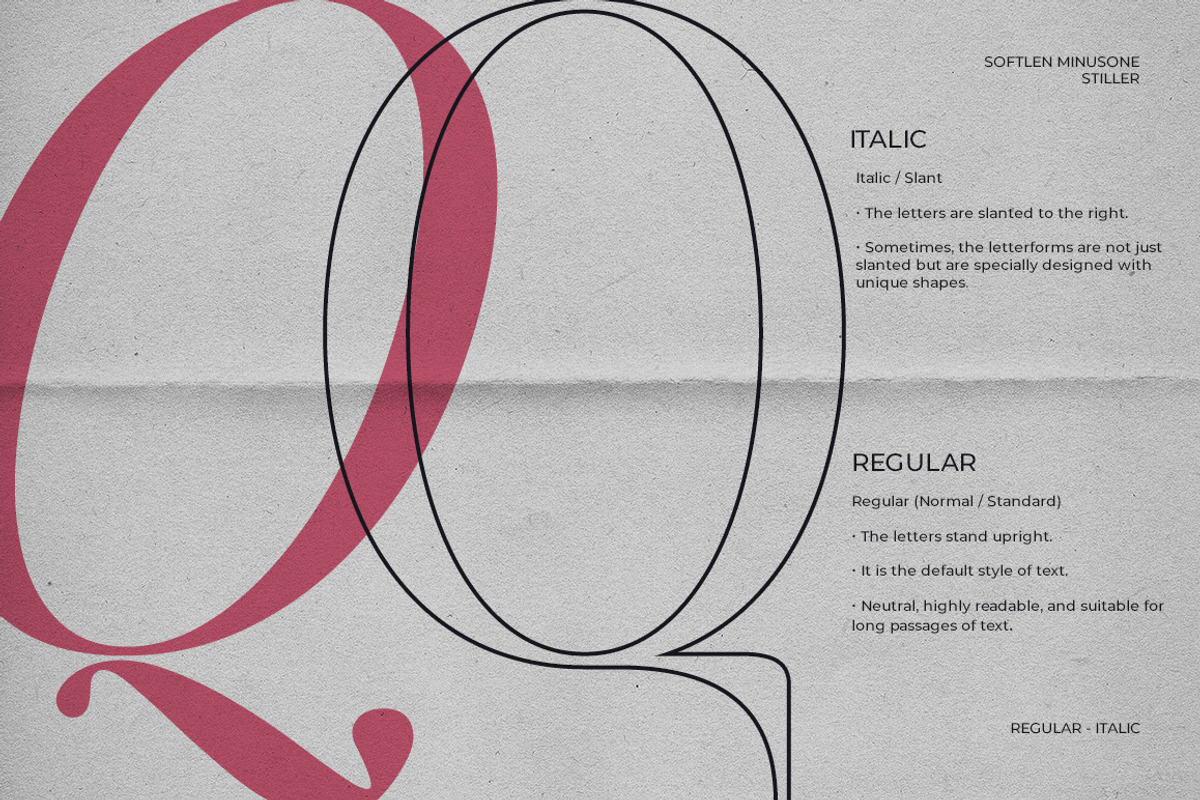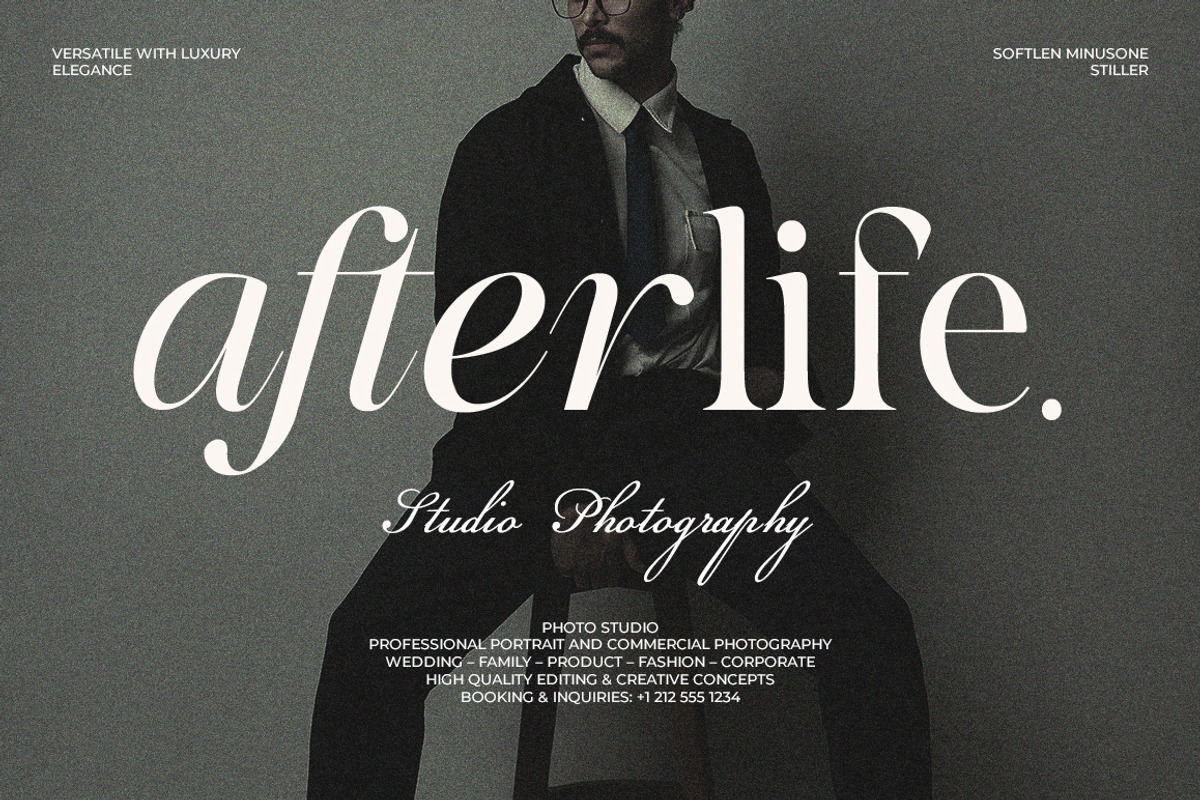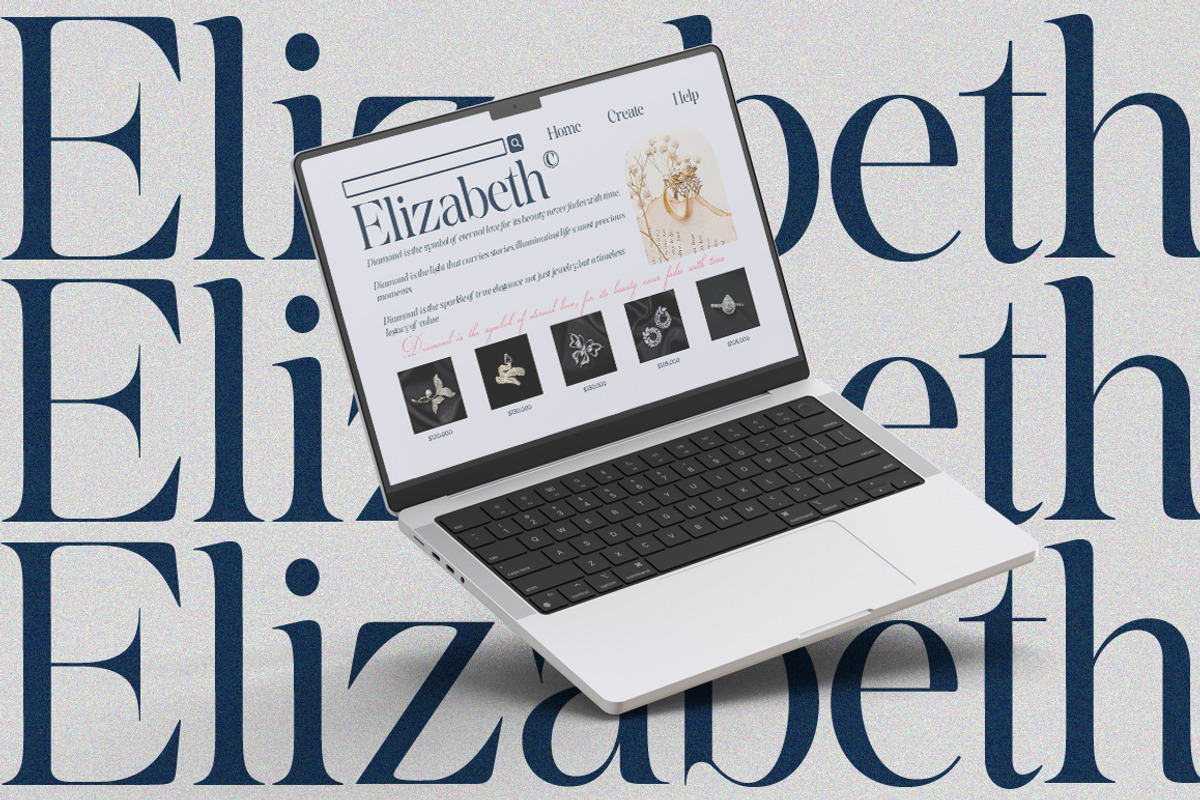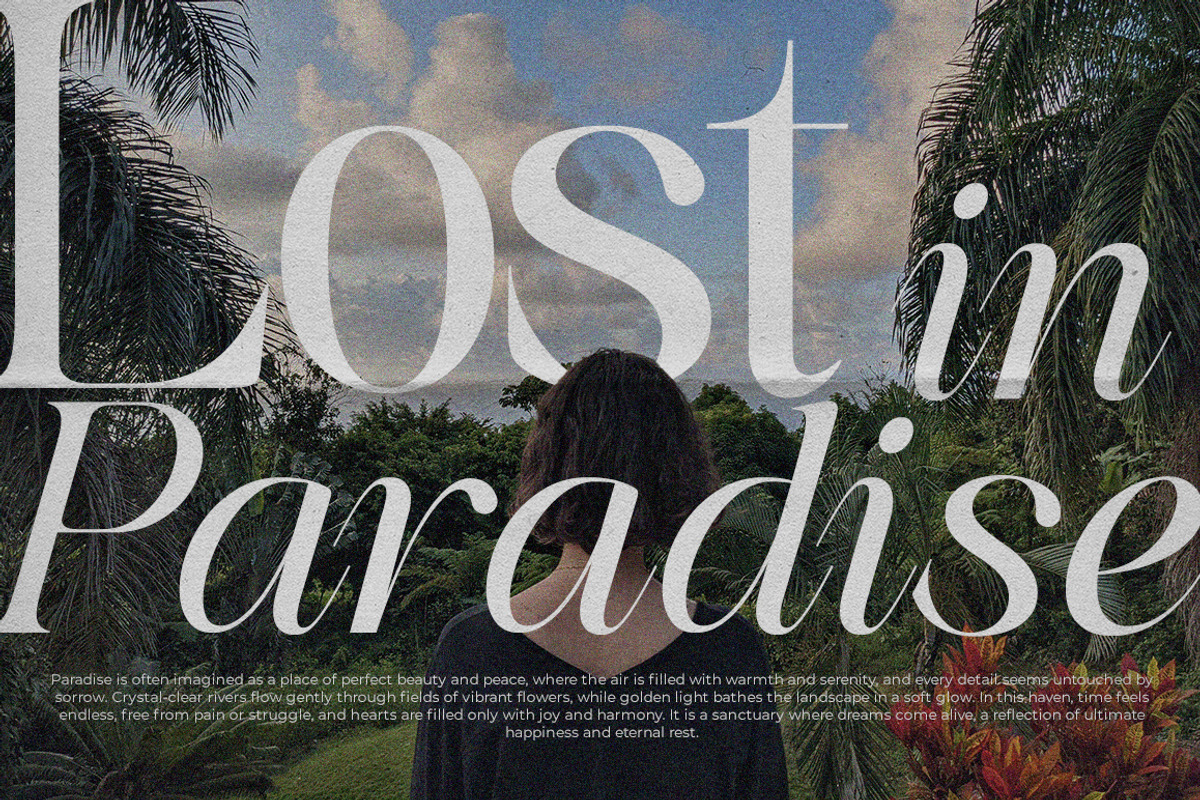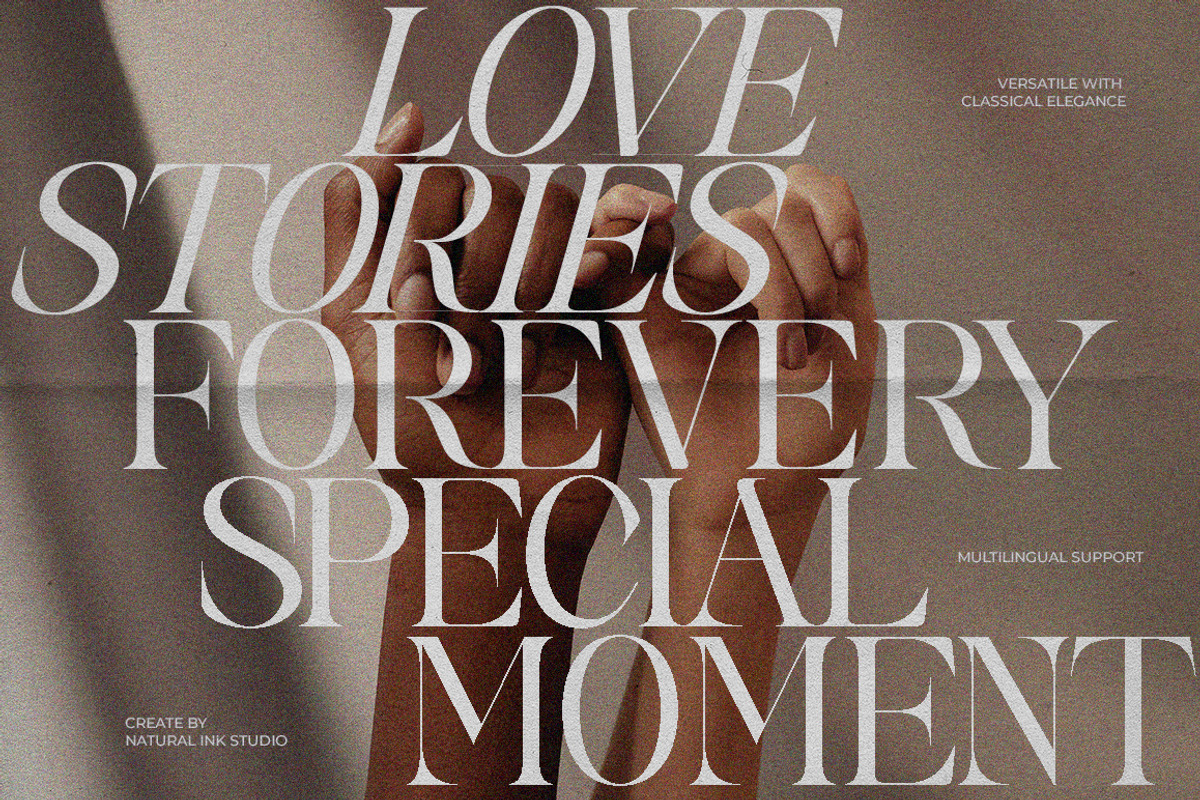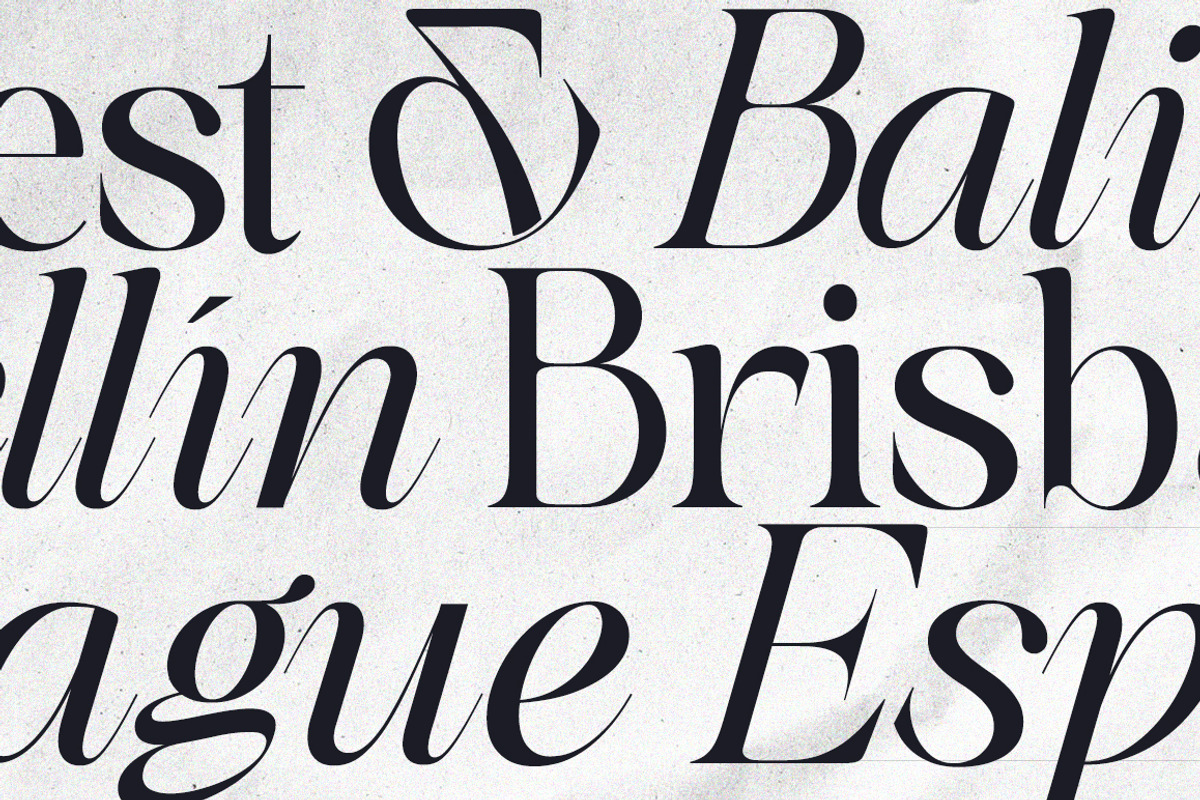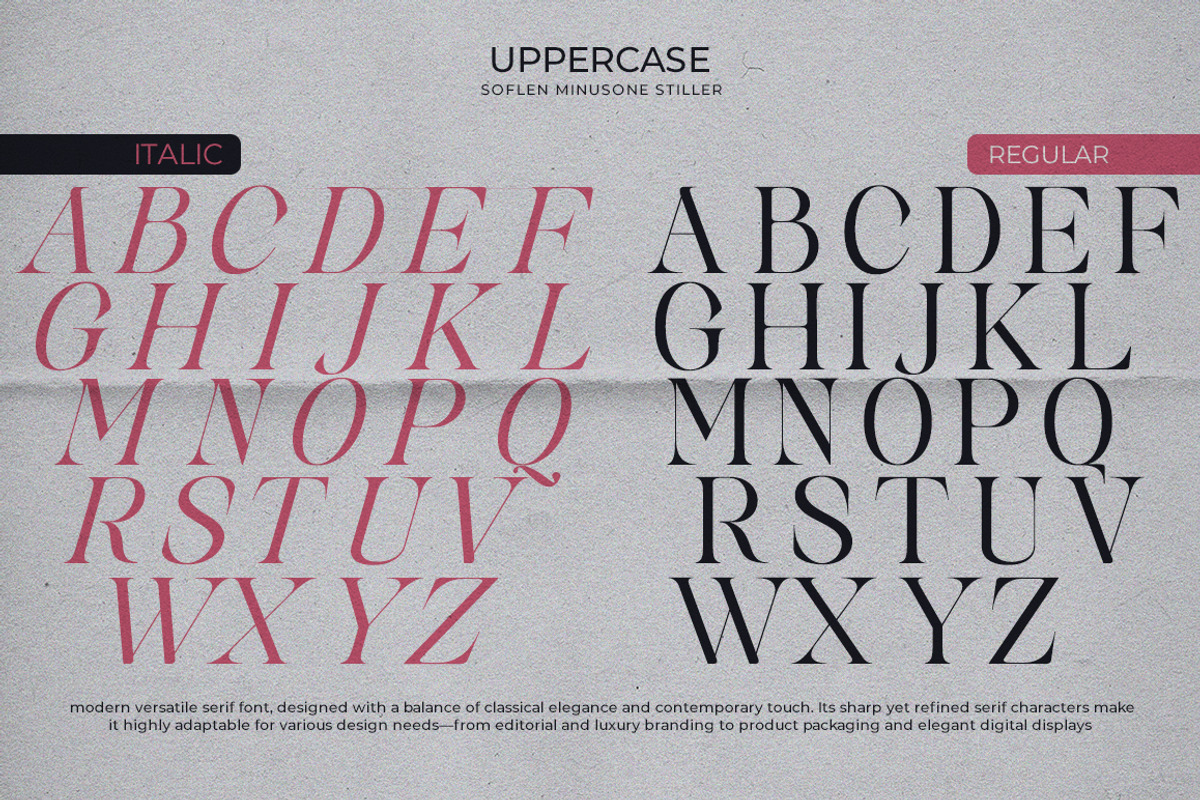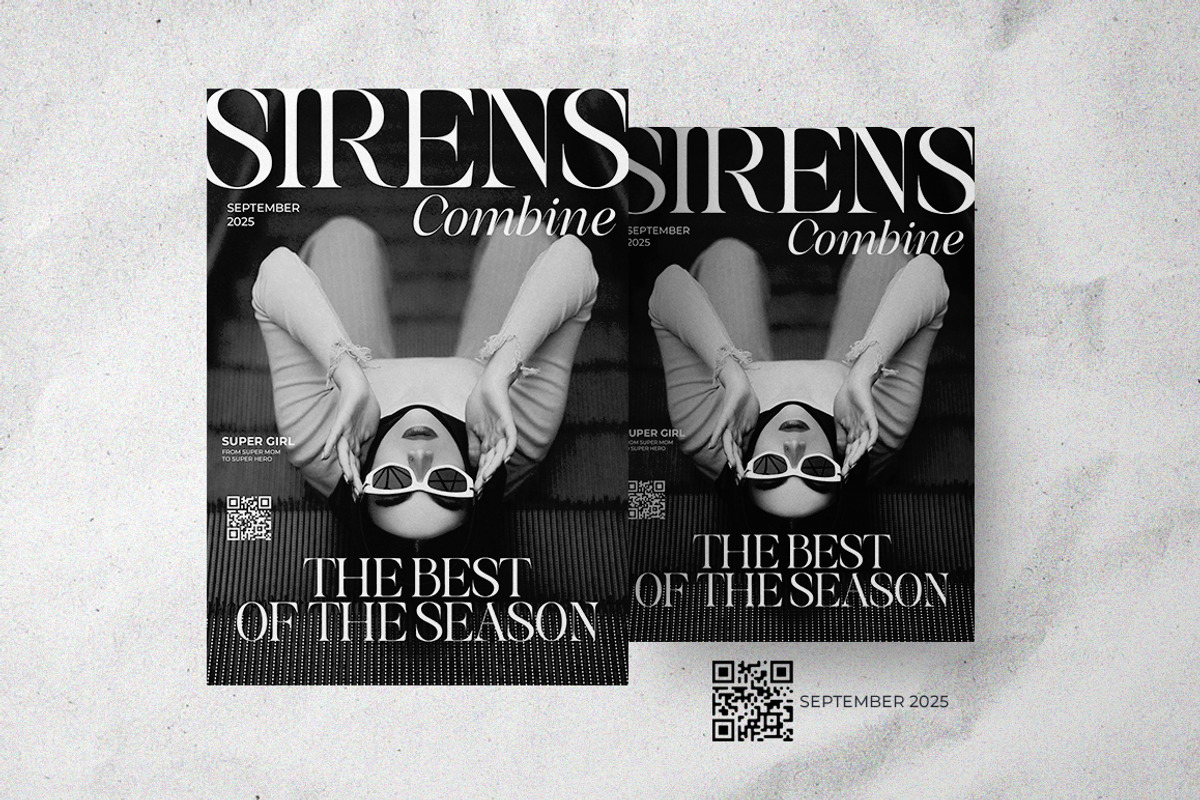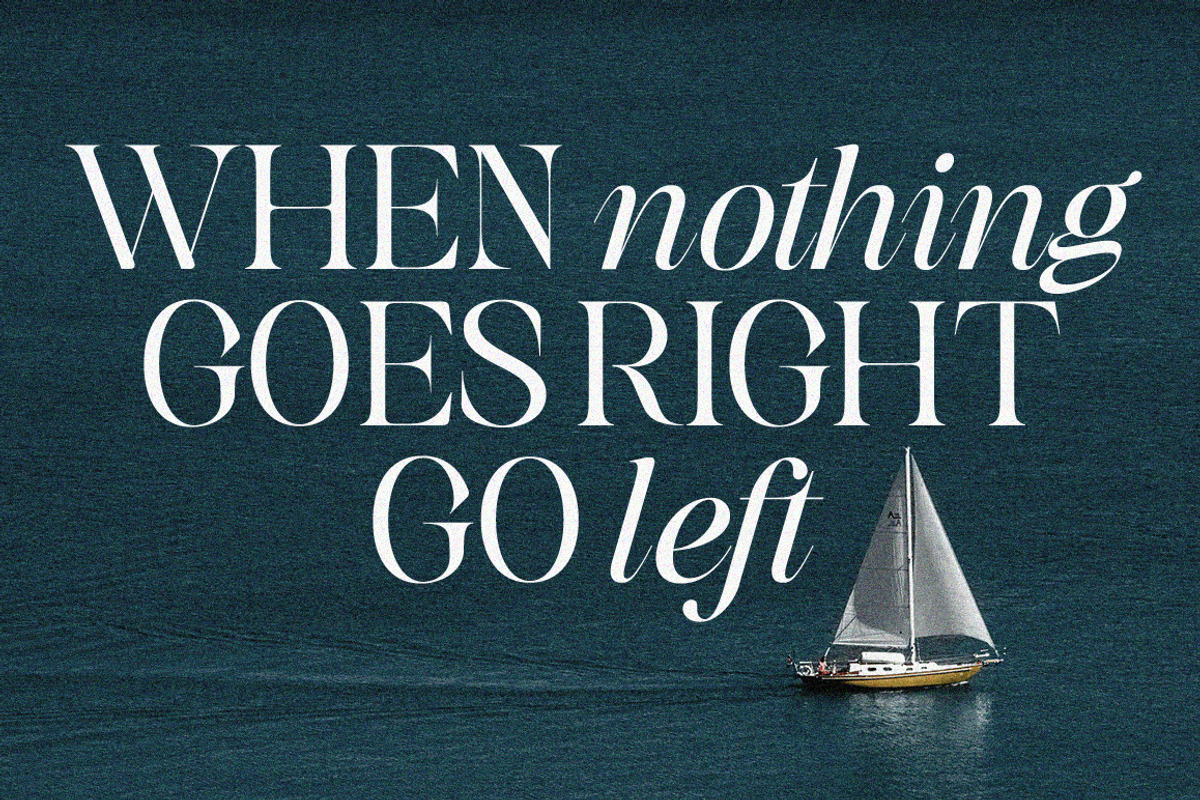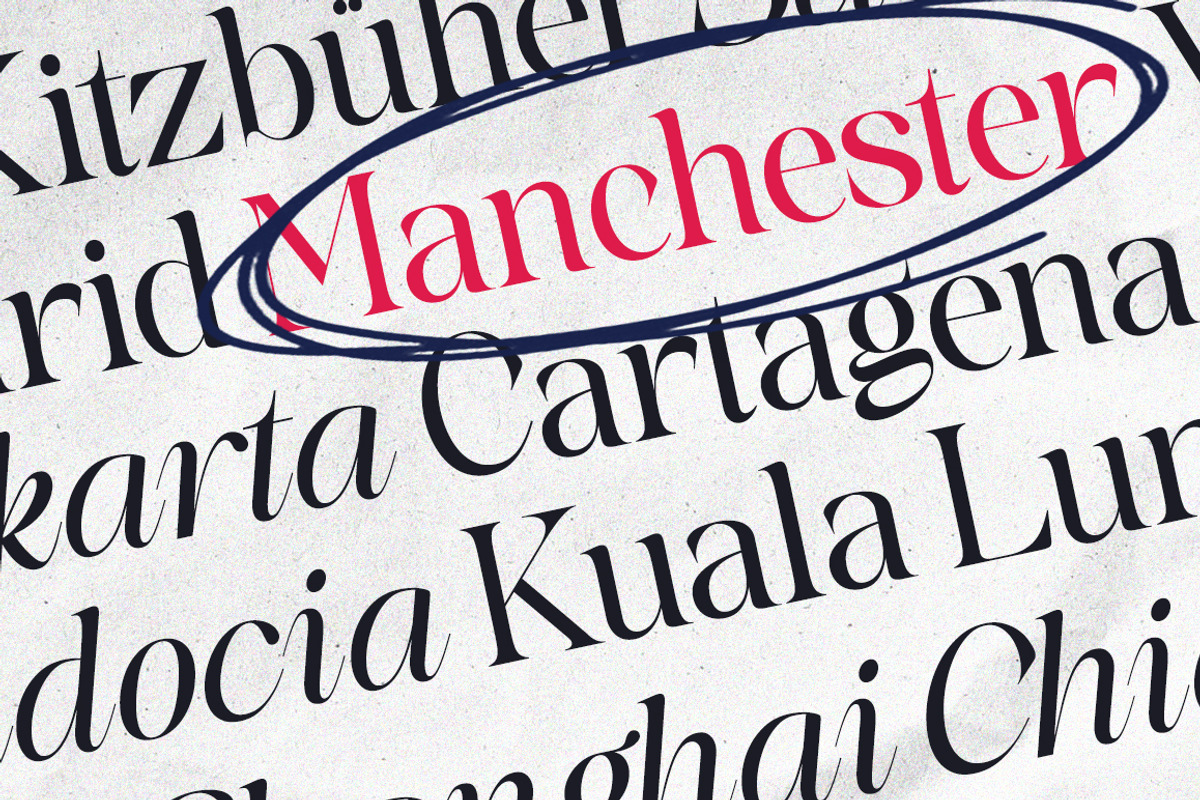
Softlen Minusone Stiller is a versatile serif typeface crafted with a perfect balance of elegance and professionalism. Its refined letterforms blend timeless editorial charm with a contemporary touch, making it suitable for both print and digital media. The sharp yet graceful serifs convey authority and sophistication, while the smooth curves add warmth and readability. Ideal for magazines, branding, and corporate communication.
Softlen Minusone Stiller adapts effortlessly across layouts—whether as striking headlines or refined body text—providing designers with a reliable choice for projects that demand both style and substance.
Softlen Minusone Stiller also comes with several unique alternates and ligatures, as well as multilingual support features that can make your project more attractive.